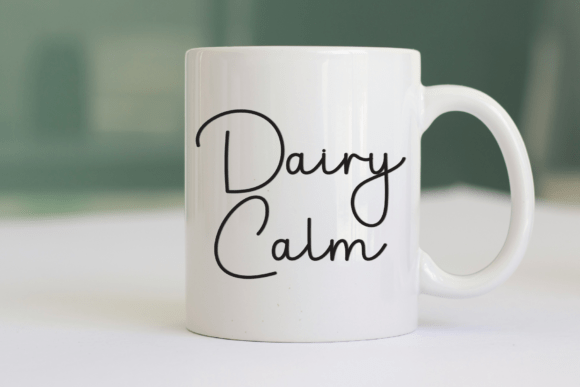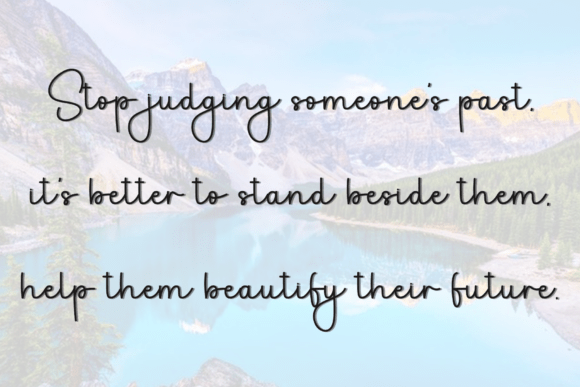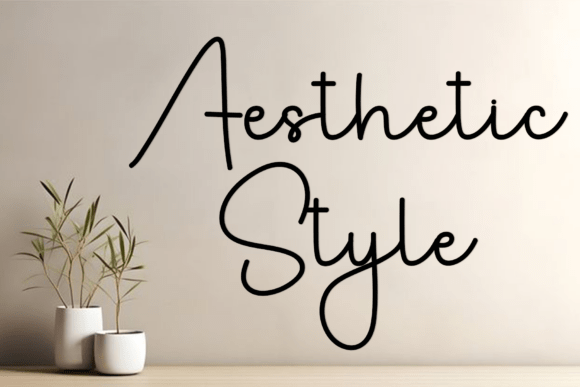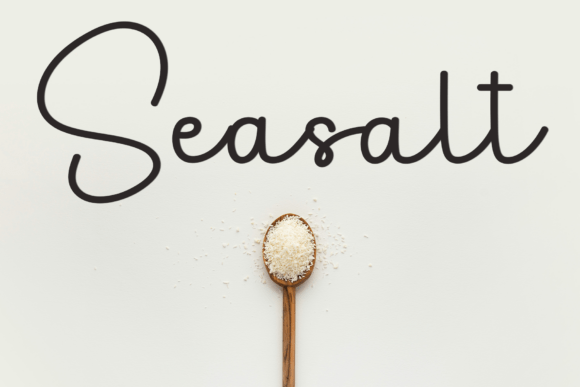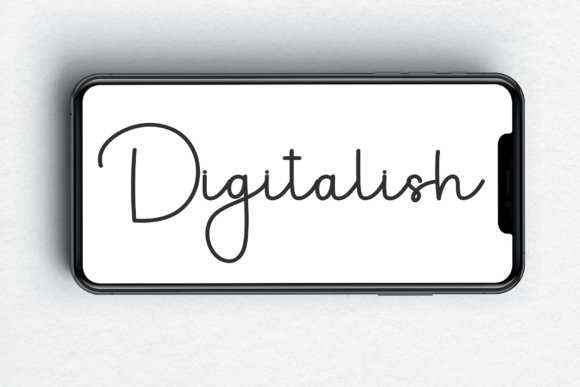
Introduction to Mother Calligraphy Font
Remember that moment when you stumble upon a design element that just makes your project pop? For me, it was the Mother Calligraphy Font – a beautiful, soft, and unique font that adds a special touch to any creative project. Its distinctive strokes give it a character that’s both meaningful and versatile, making it perfect for a wide range of designs.
Whether you’re working on a commercial project or a personal craft, the Mother Calligraphy Font is sure to bring a unique and eye-catching element to your design. Its value lies in its ability to appeal to a wide audience, making it a valuable addition to any designer’s toolkit.
Key Features of Mother Calligraphy Font
- Unique, elegant handwriting style with a touch of whimsy, perfect for creative projects and personal designs.
- Translucent background option, allowing for seamless integration with various backgrounds and images.
- Designed to be versatile and easy to use, making it an excellent choice for designers of all skill levels.
Honest Review: Mother Calligraphy Font
I recently came across the Mother Calligraphy Font, and I must say it’s a fantastic addition to my design resources. This high-quality font is perfect for any creative project that requires a touch of elegance and sophistication.
What works well about this font is its versatility and wide range of styles. It’s ideal for designing invitations, quotes, and other graphics that require a beautiful handwritten look. The font also features a transparent background, making it easy to layer and combine with other design elements.
- ✨ Elegant and sophisticated design
- ✨ Wide range of styles and variations
- ✨ Perfect for creative projects, such as invitations and quotes
- ✨ Transparent background for easy layering
The Mother Calligraphy Font is ideal for use in wedding invitations, birthday cards, and other creative projects that require a touch of elegance and sophistication.